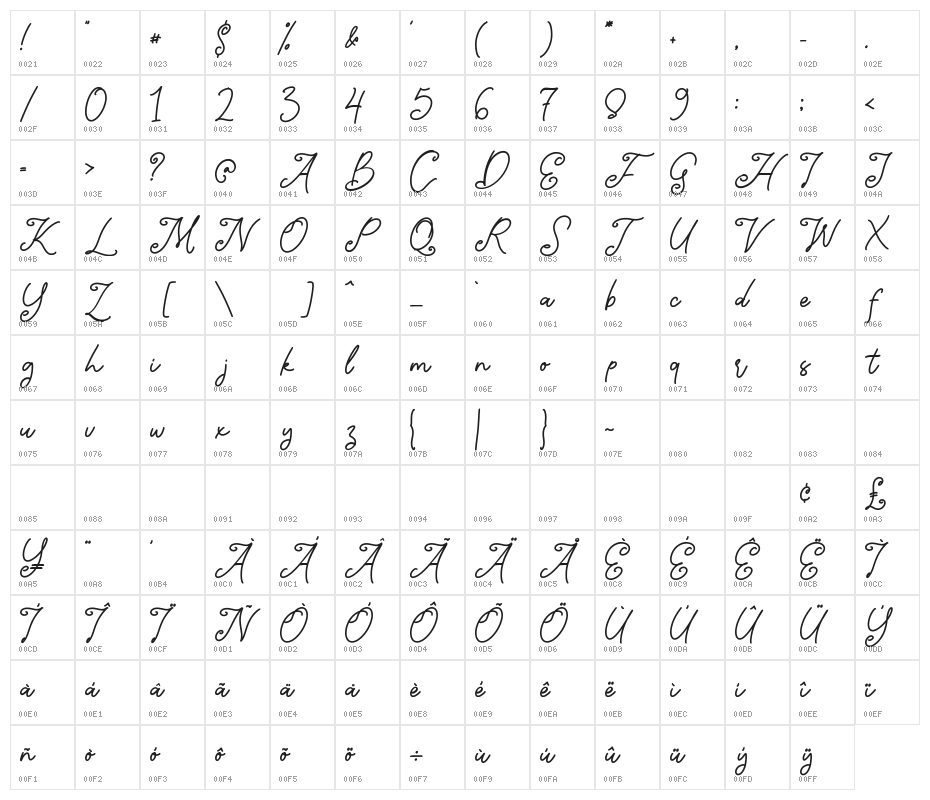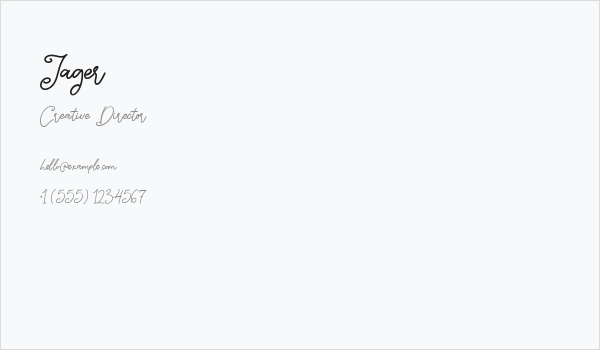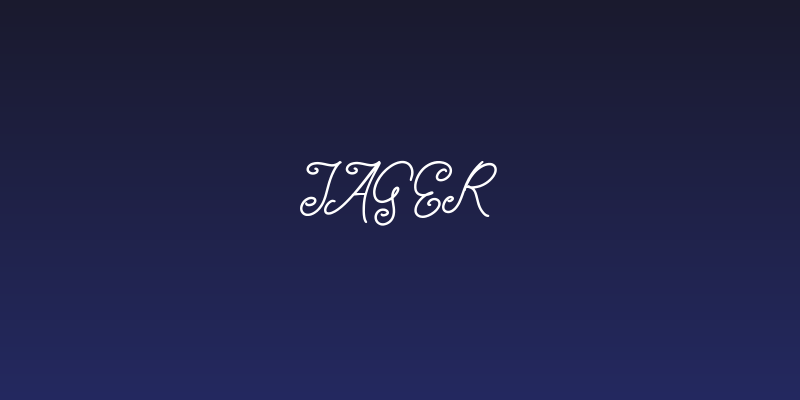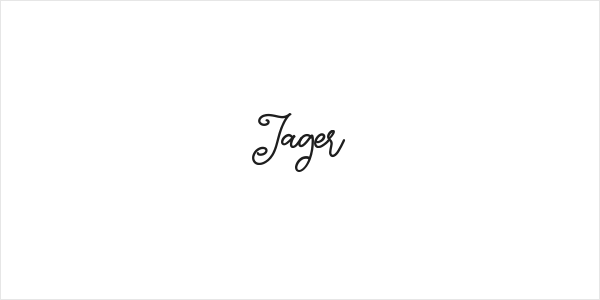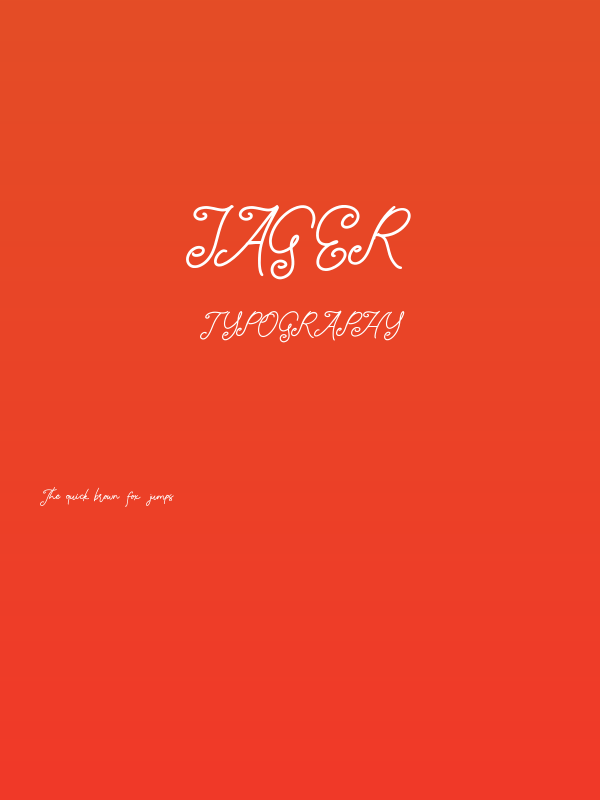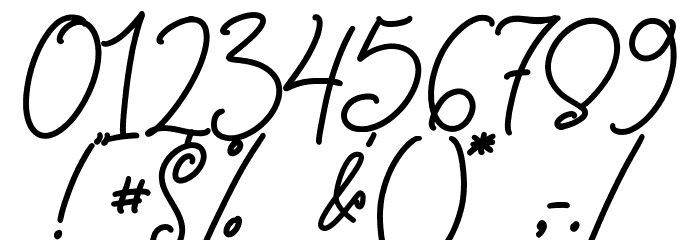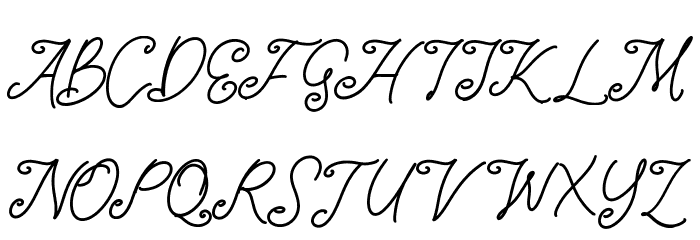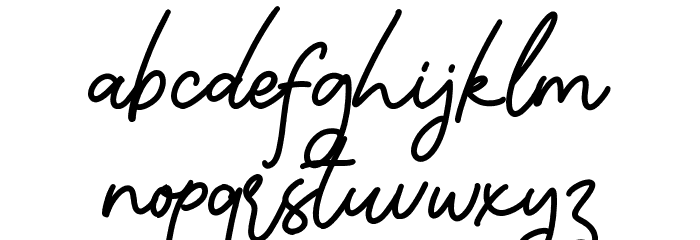
Jager Font
Jager Description
This font features an elegant and flowing script style, characterized by its smooth, connected strokes and graceful curves. The uppercase letters exhibit a classic cursive form, with decorative loops and swashes that add a touch of sophistication. The lowercase letters maintain a consistent flow, enhancing readability while preserving the font's artistic flair. Numbers and special characters are designed with the same attention to detail, ensuring a cohesive appearance across all elements. This font's overall aesthetic is both timeless and versatile, making it suitable for a variety of design applications.